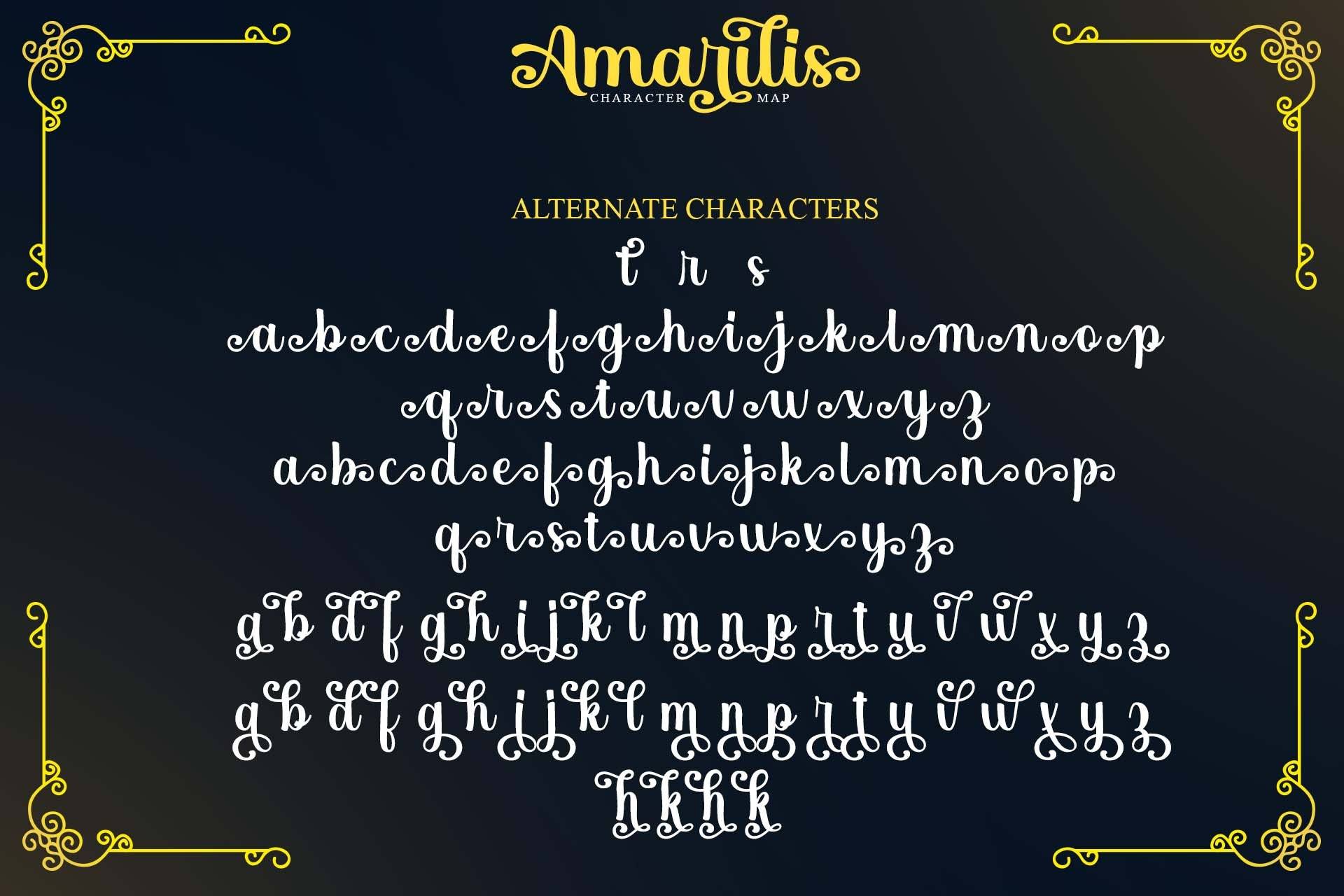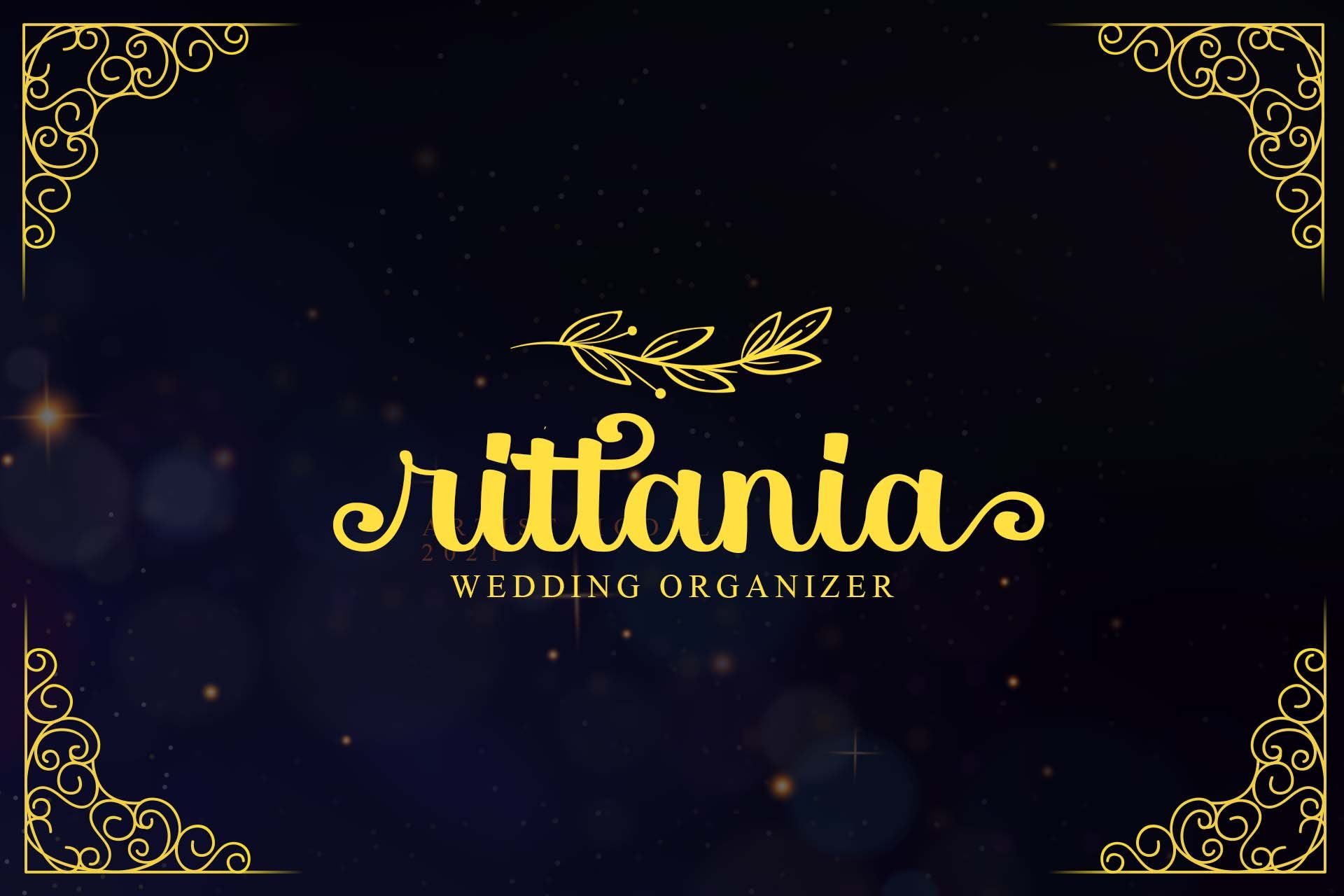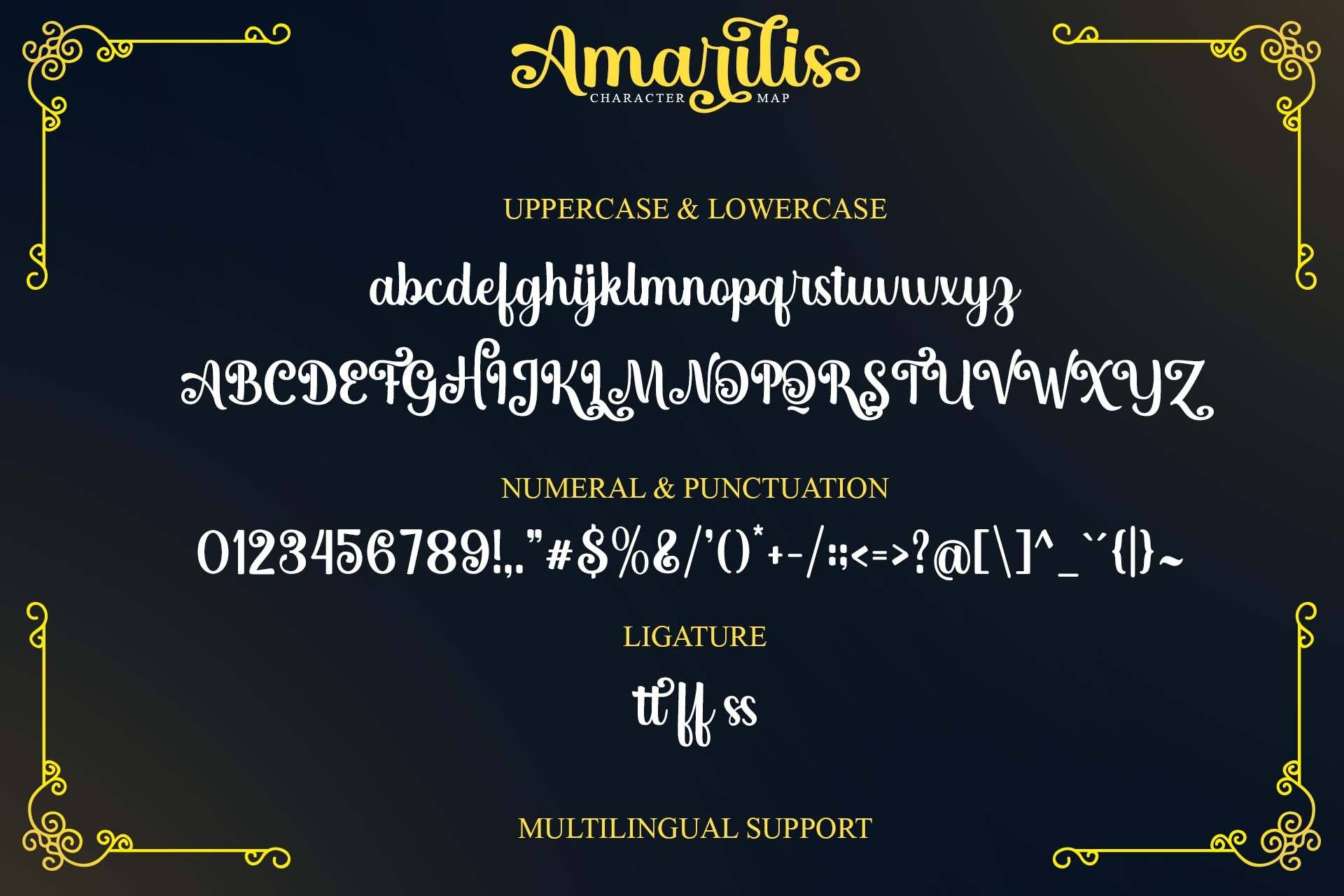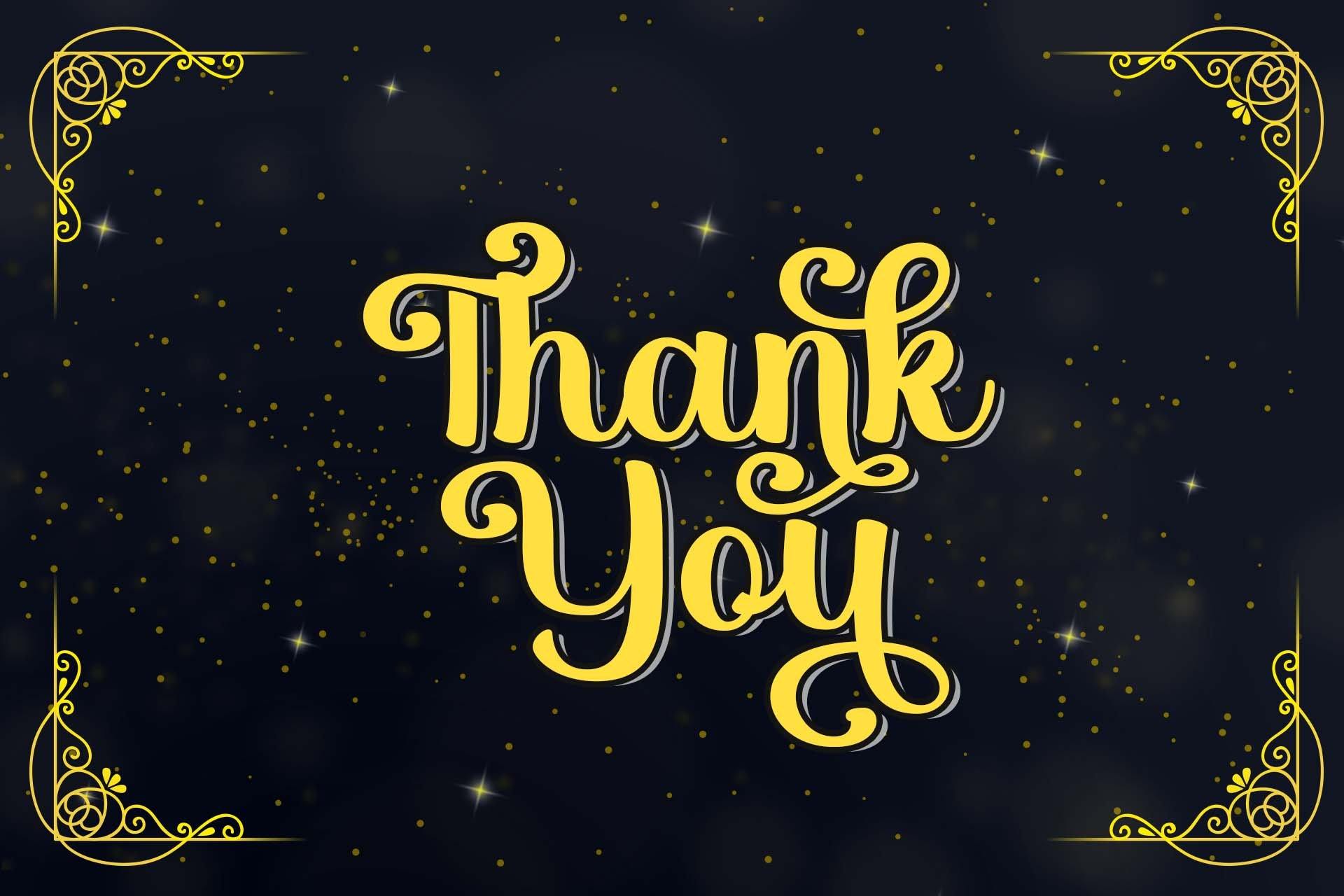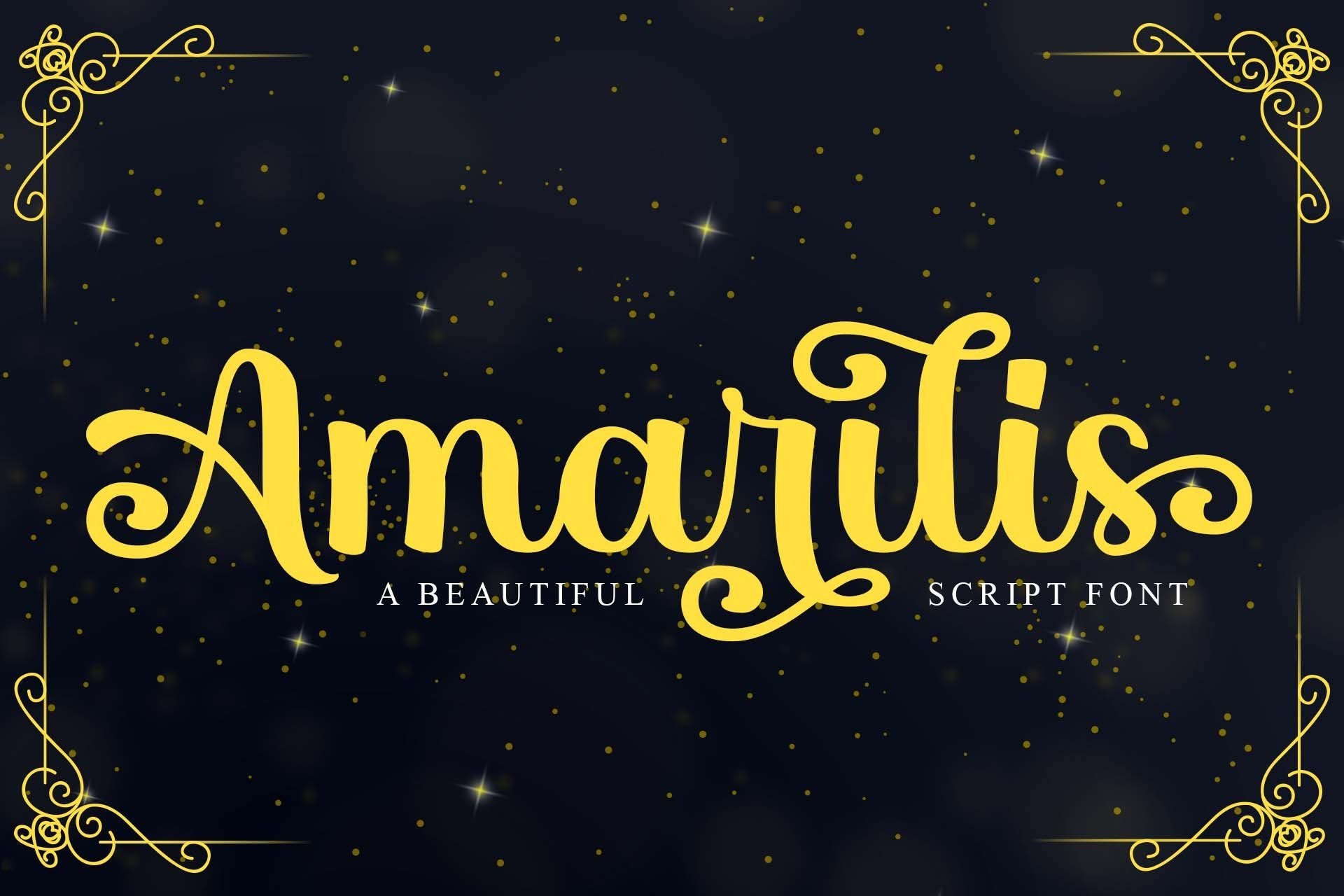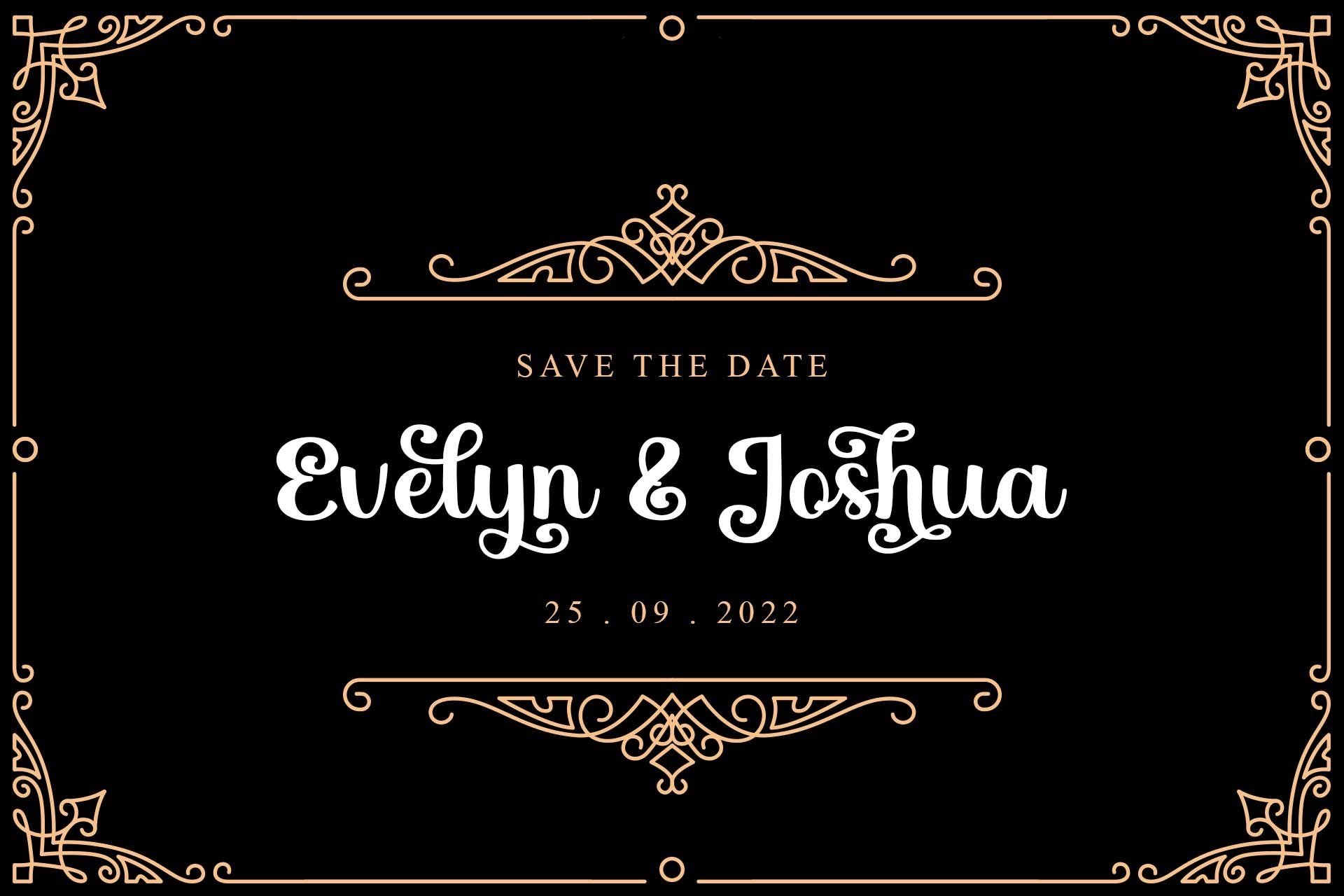
Amarilis
About Amarilis
Inspired by a flower named Amarilis, this serif font is made with exquisite and detailed looks. It will have an elegant and charming effect when used in wedding invitation cards, product logos, brand logos, greeting cards, quotes, and others! This font is PUA encoded which means you can access all of the glyphs and swashes with ease!